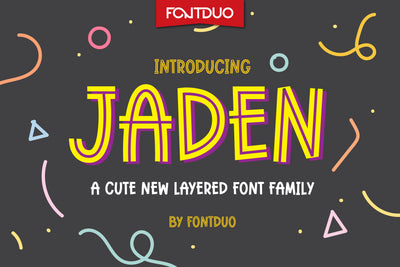
Jaden Cute Font Style
Jaden is a childish, easy-to-read display font that conveys impeccable friendliness. Whether you’re using it for crafts, digital design, presentations, or making greeting cards, this font has the potential to become your favorite go-to font, no matter the occasion!